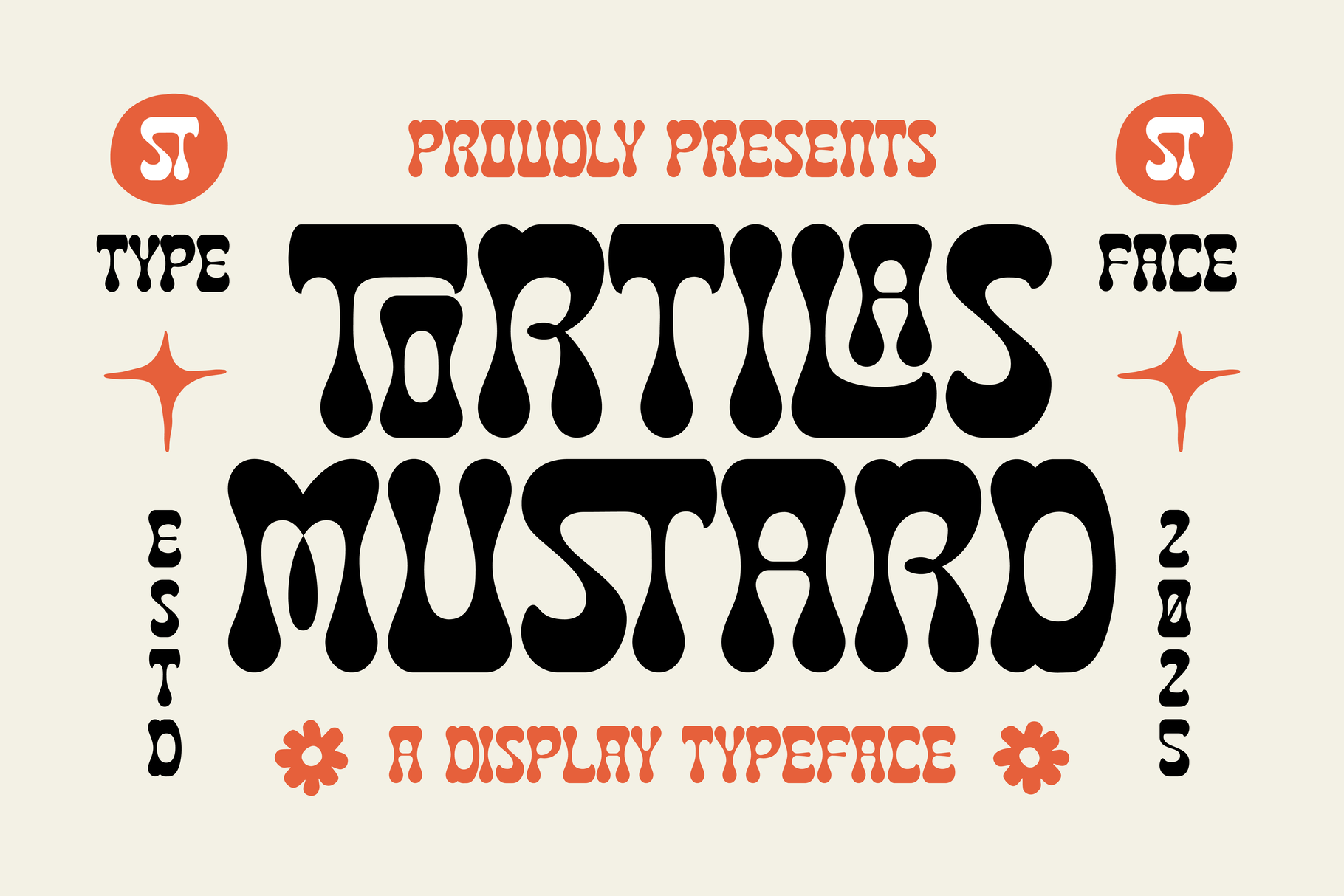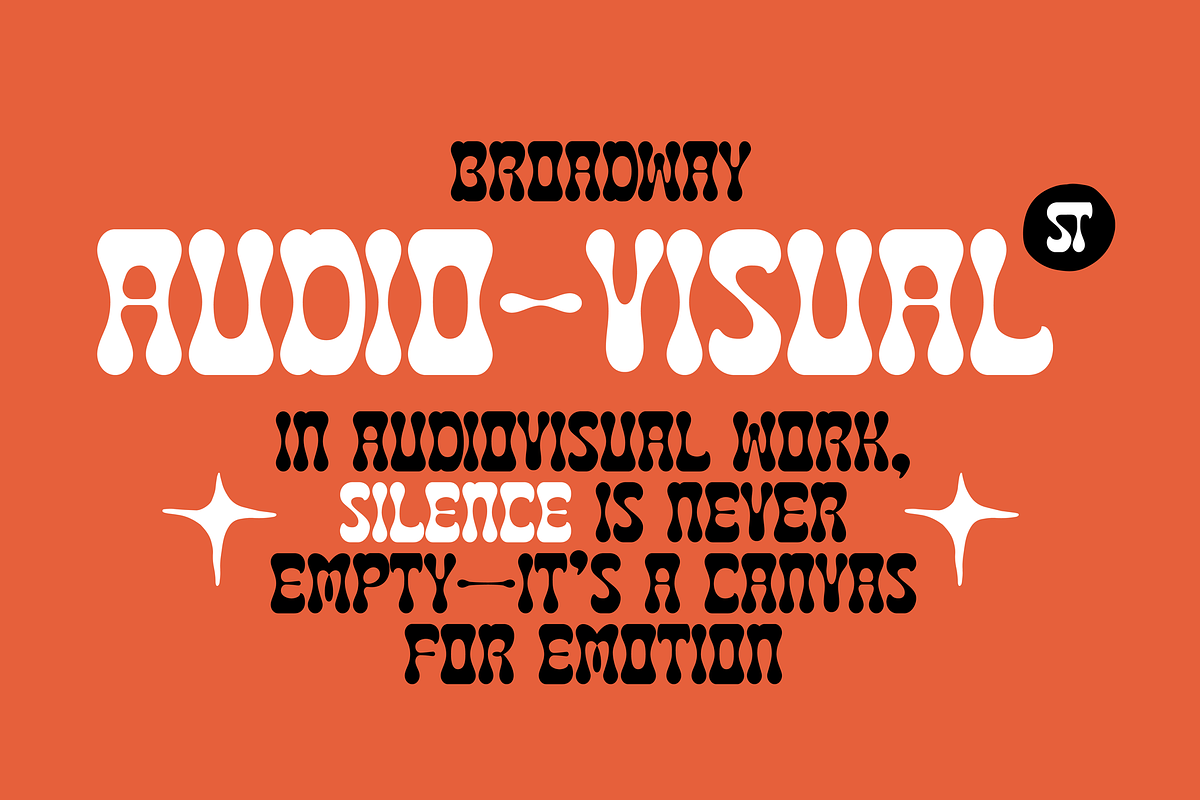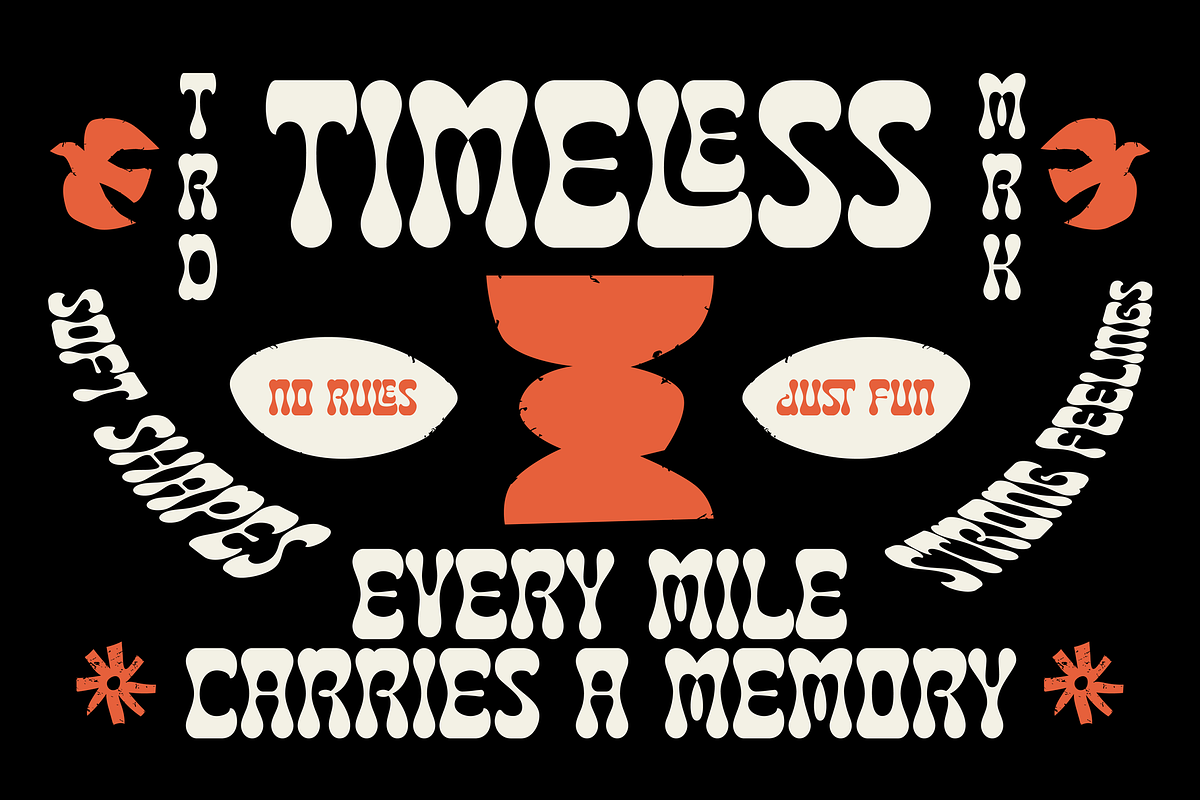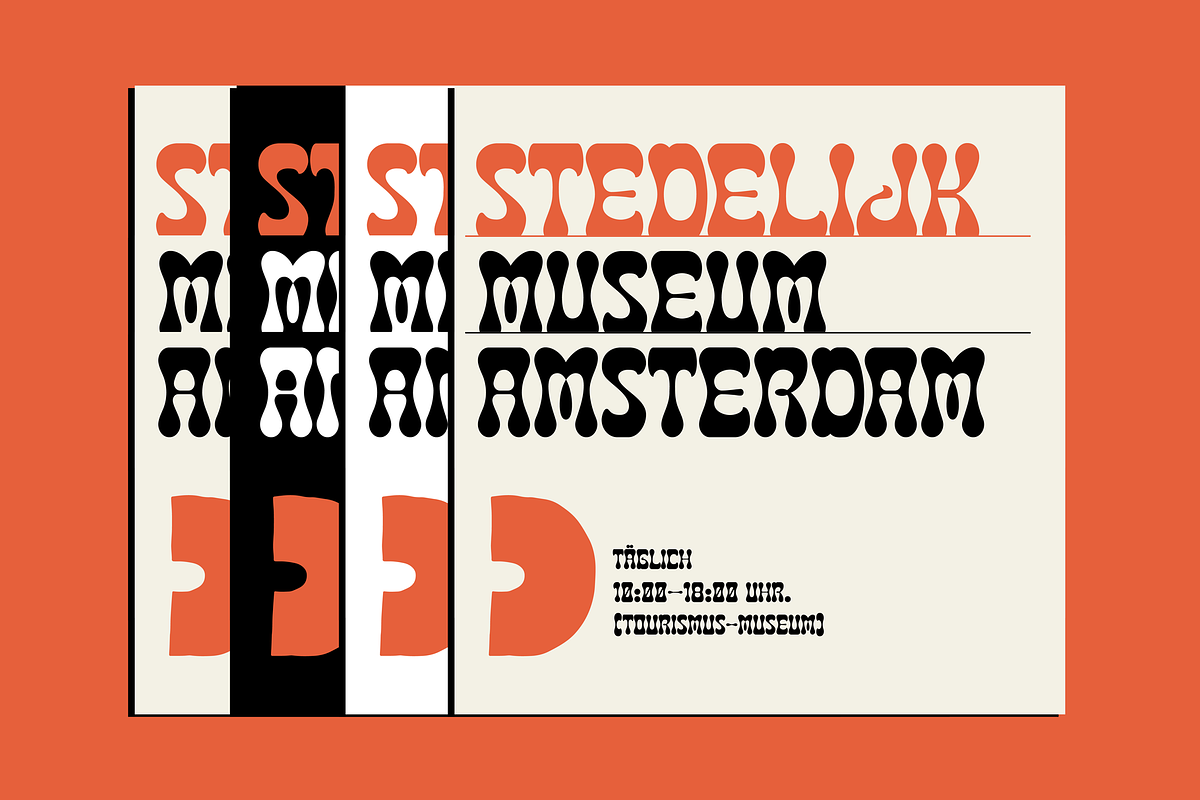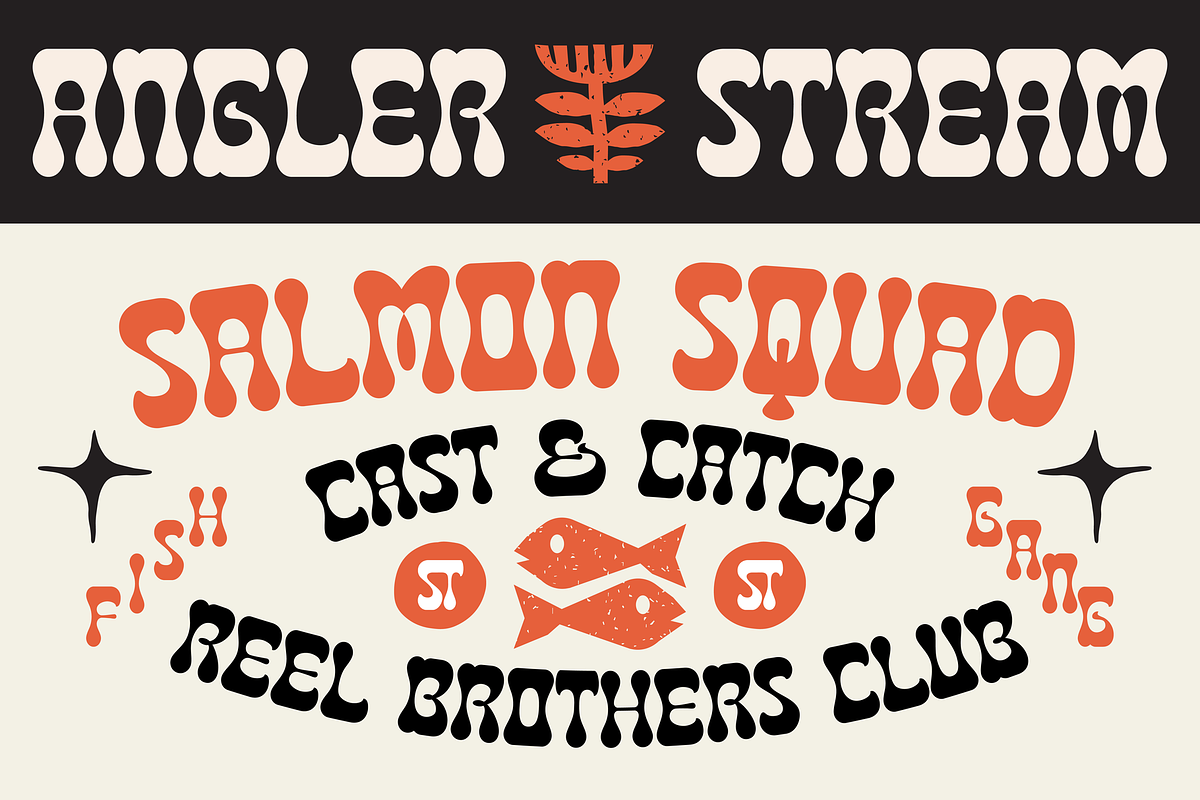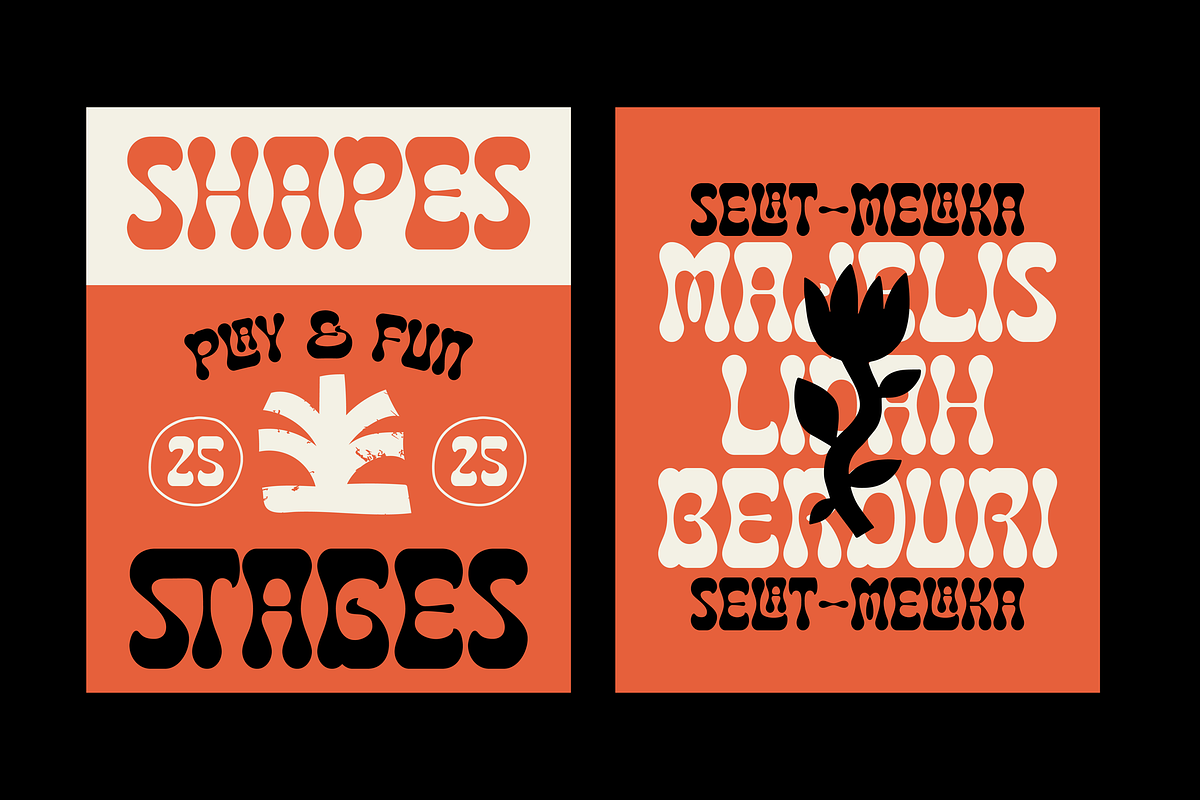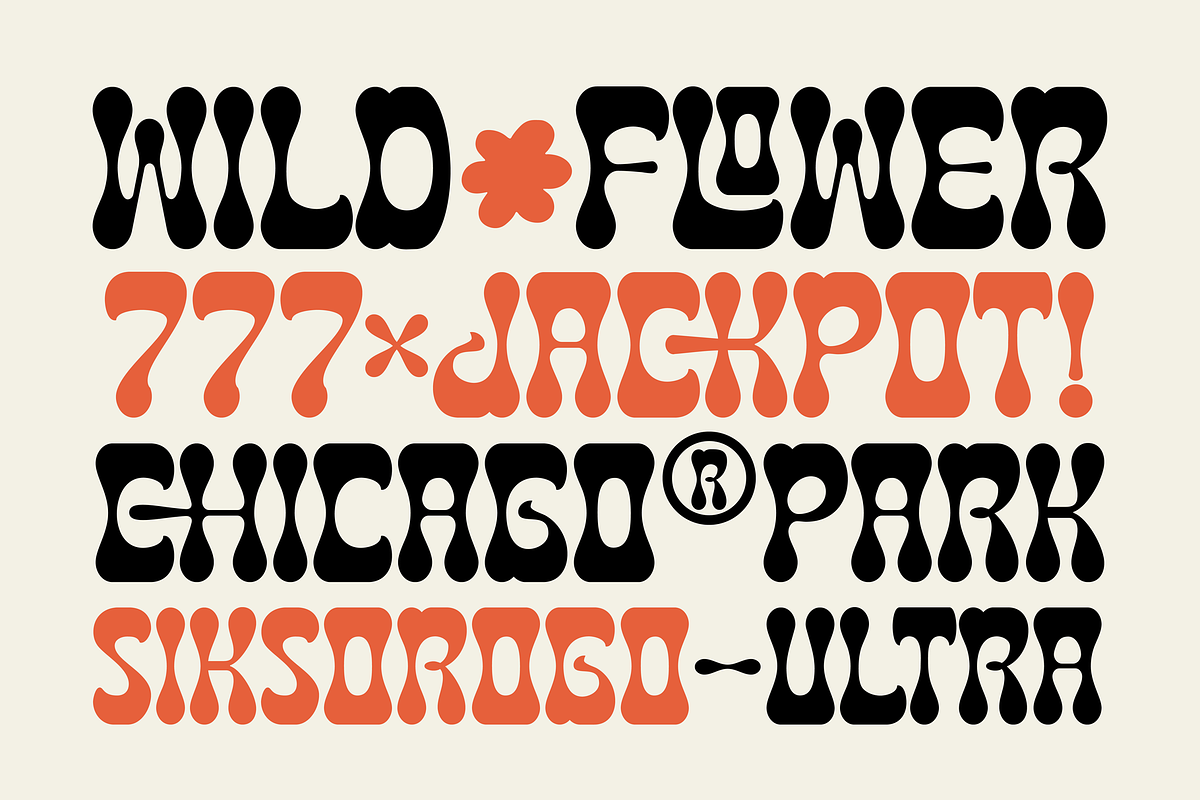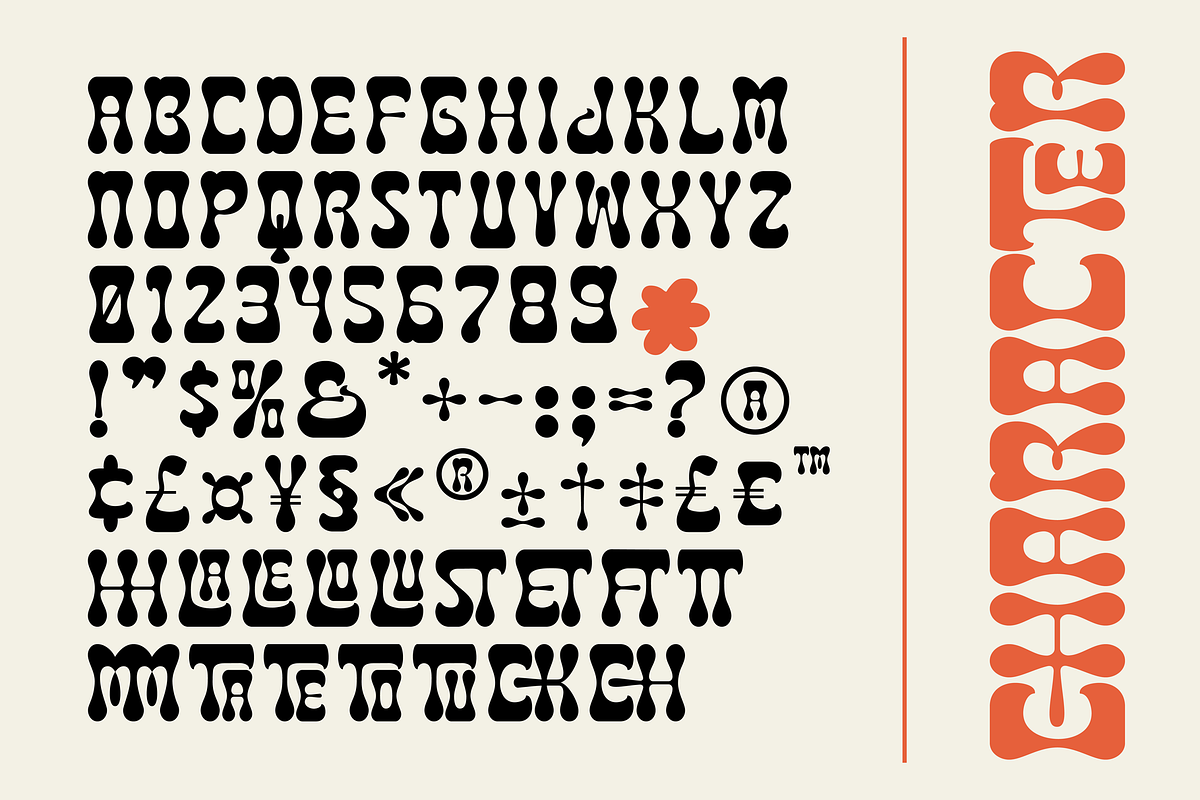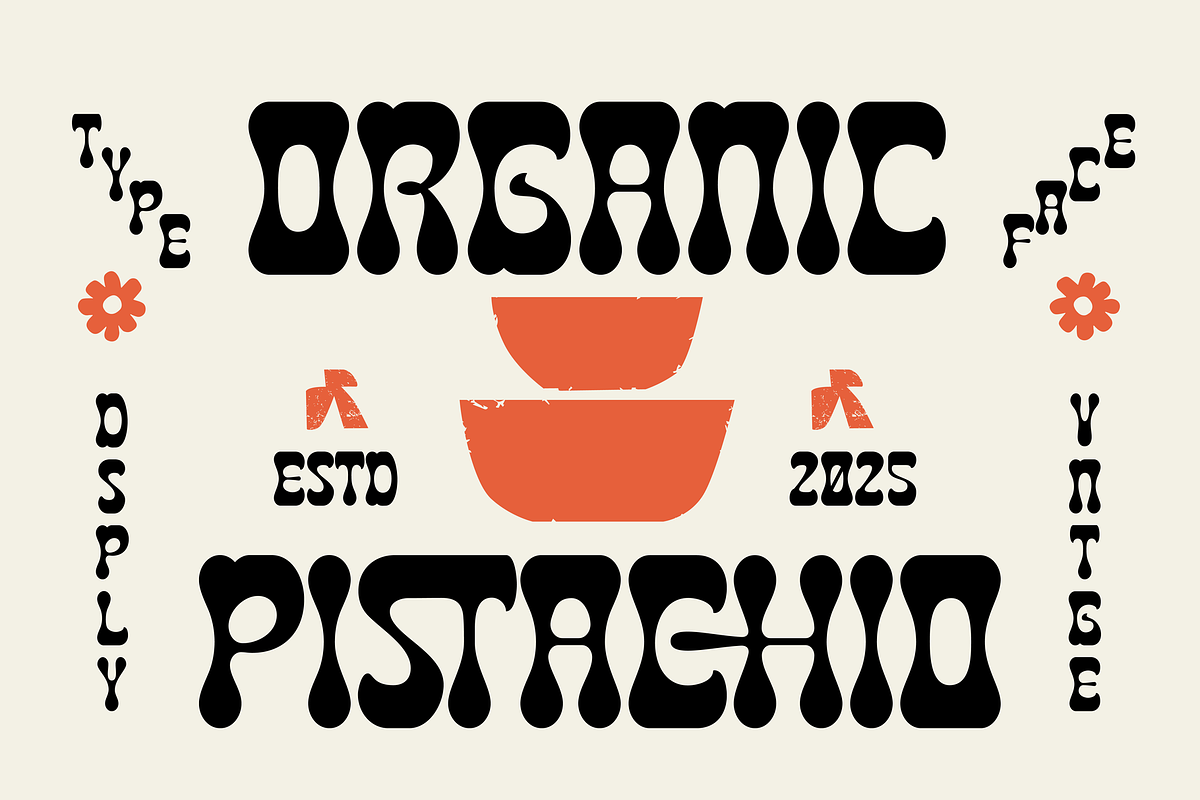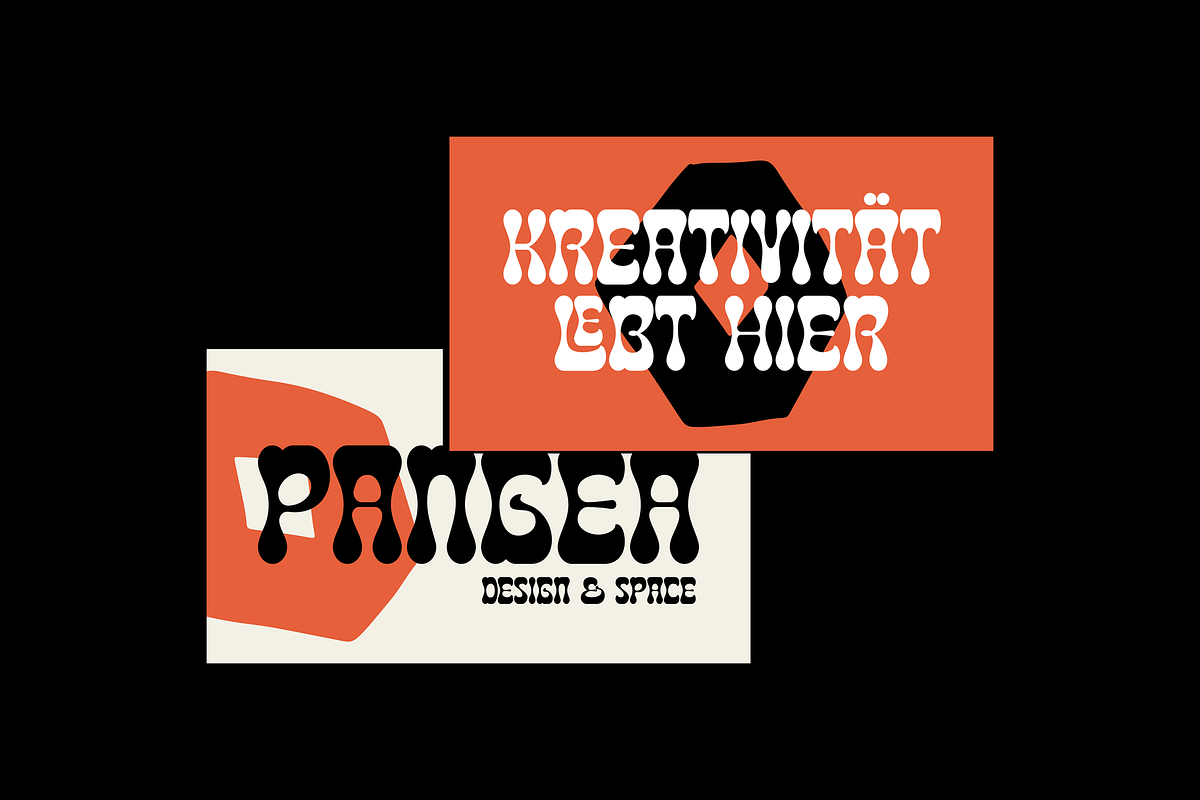
Tortilas Mustard – Funky Retro Font
Tortilas Mustard is a bold and playful display font inspired by retro typography and funky visual culture. Featuring chunky shapes, soft curves, and expressive letterforms, this font brings strong personality and fun energy to any design.
Perfect for headlines, posters, logos, packaging, branding, merchandise, social media, and creative projects that need a standout retro look. Tortilas Mustard works great for both modern and vintage-inspired designs.
Uppercase characters
Retro & funky letterforms
Multilingual accent support
Ideal for branding, posters, packaging, and headlines